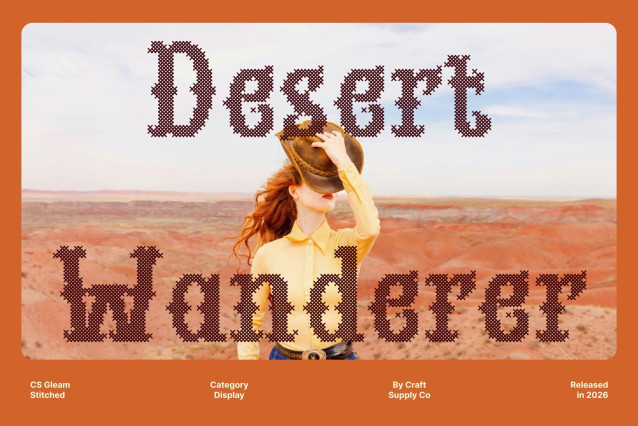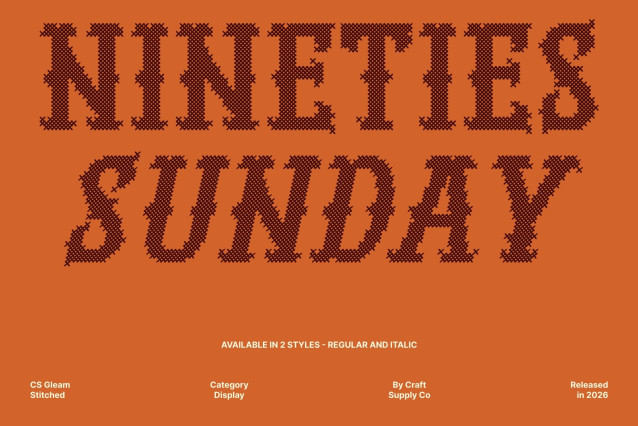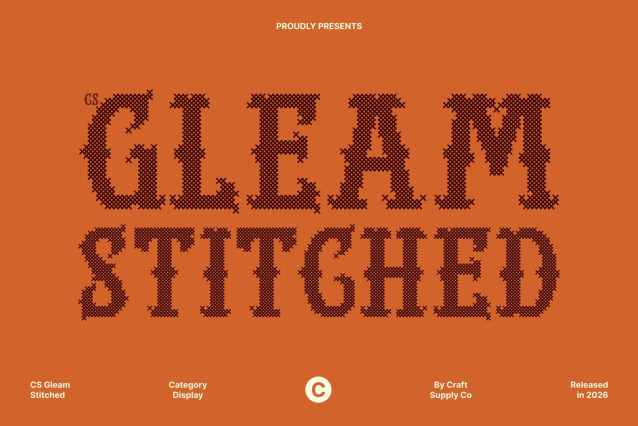
CS Gleam Stitched Font
CS Gleam Stitched – Tuscan Font with Embroidered Charm: Elegant with Stitched Twist
Distinctive Tuscan Elegance with a Stitched Twist
A bold Tuscan display font reimagined with a stitched effect, giving the impression of thread sewn or embroidered onto fabric. Its split terminals, decorative curves, and strong contrasts retain the classic 19th-century Tuscan style, while the cross-shaped stitched pattern adds texture, warmth, and a handcrafted feel.
Vintage Western & Ornamental Appeal
Inspired by Wild West signage, Victorian posters, and vintage letterpress design, this font combines historic elegance with playful ornamentation. Its embossed, structured texture evokes nostalgia and sophistication, making it perfect for designs seeking a timeless yet approachable look.
Ideal for Themed, Classic & Handcrafted Designs
Perfect for branding, packaging, event materials, and logos, this font brings a cozy, artisanal quality to your projects. From Western-inspired posters and whiskey labels to heritage brand identities or handcrafted product packaging, this font offers a unique, memorable, and tactile visual impression.